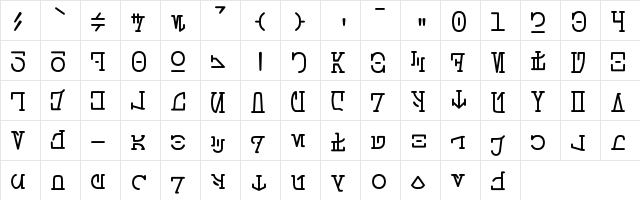
Aurebesh_Typewriter normal
Design Context for Aurebesh_Typewriter Typeface
Aurebesh_Typewriter brings the precise, column-aligned rhythm of monospaced typography to designs that value technical clarity and systematic order.
Well-suited to data-driven dashboards, coding tutorials, and any design that wants to reference the world of programming.
Pro Tip: Use Aurebesh_Typewriter with slightly increased line-height for extended reading — fixed-width spacing can feel dense in longer passages without extra breathing room.